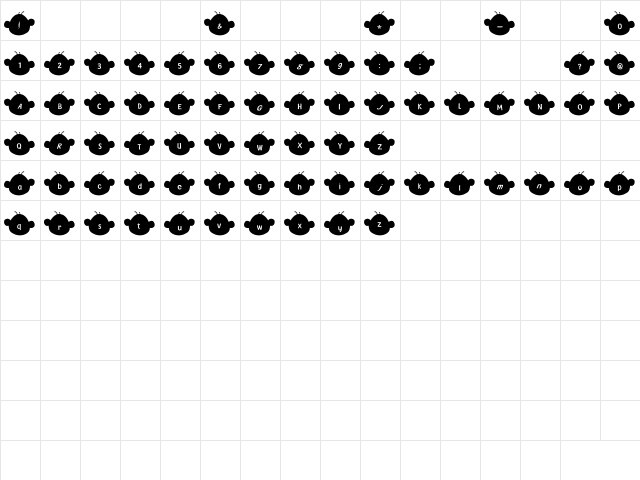
mi4Font Regular
Design Context for mi4Font Typeface
mi4Font is a composed and adaptable typeface that performs quietly and consistently across a wide range of design contexts.